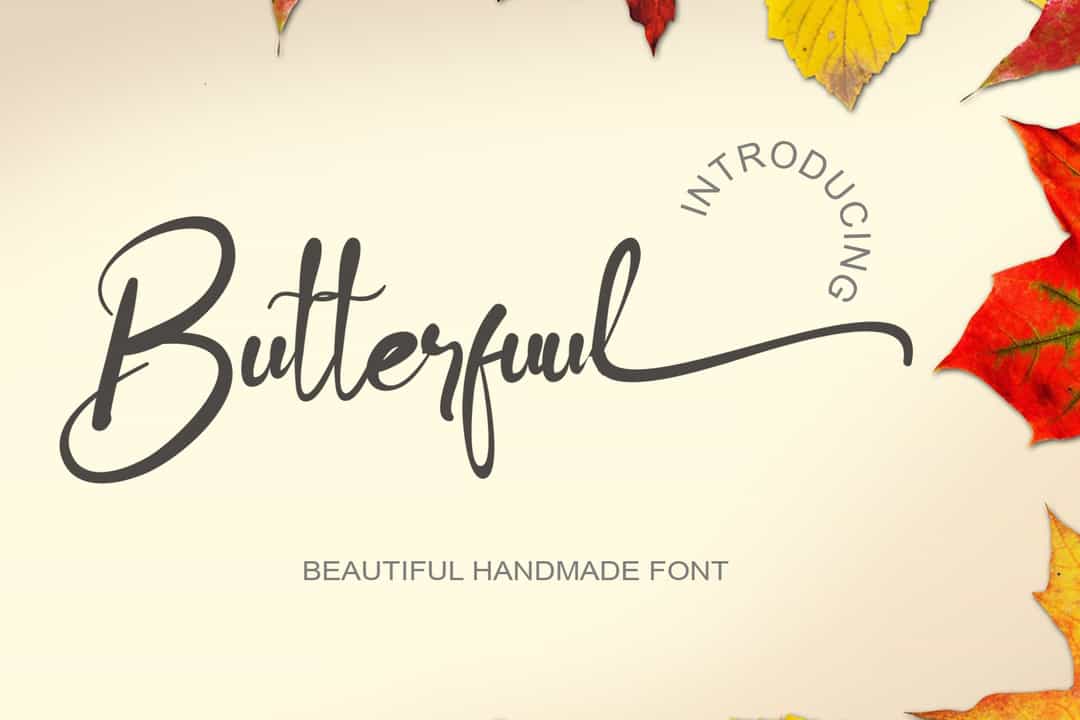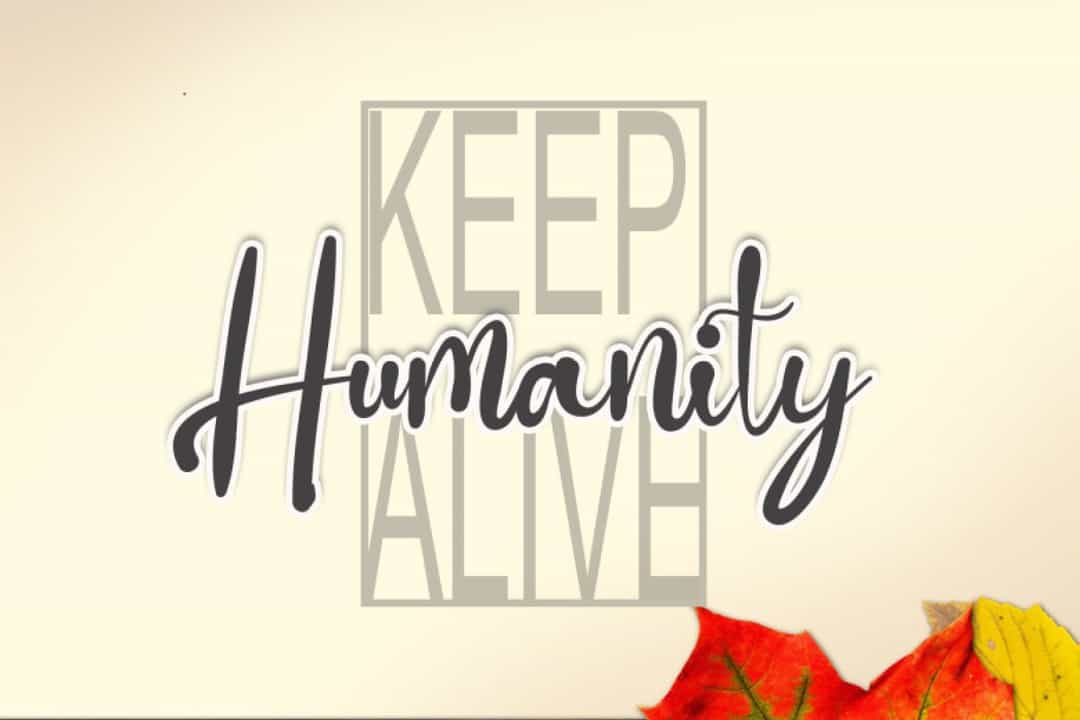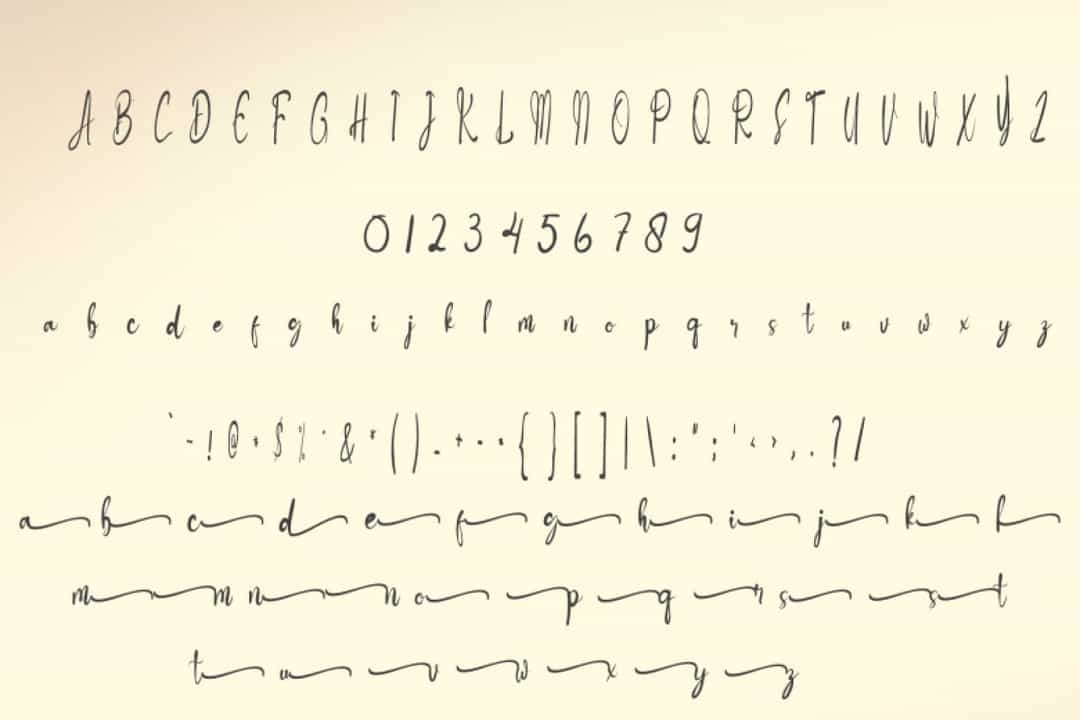
Butterfuul is an inviting and romantic script typeface with characters dancing across its base. With its smooth lines and clean aesthetic, Butterfuul will surely become a highlight in any design you include it in. Furthermore, its PUA encoded version ensures easy access to its full range of glyphs, swashes, characters and features!